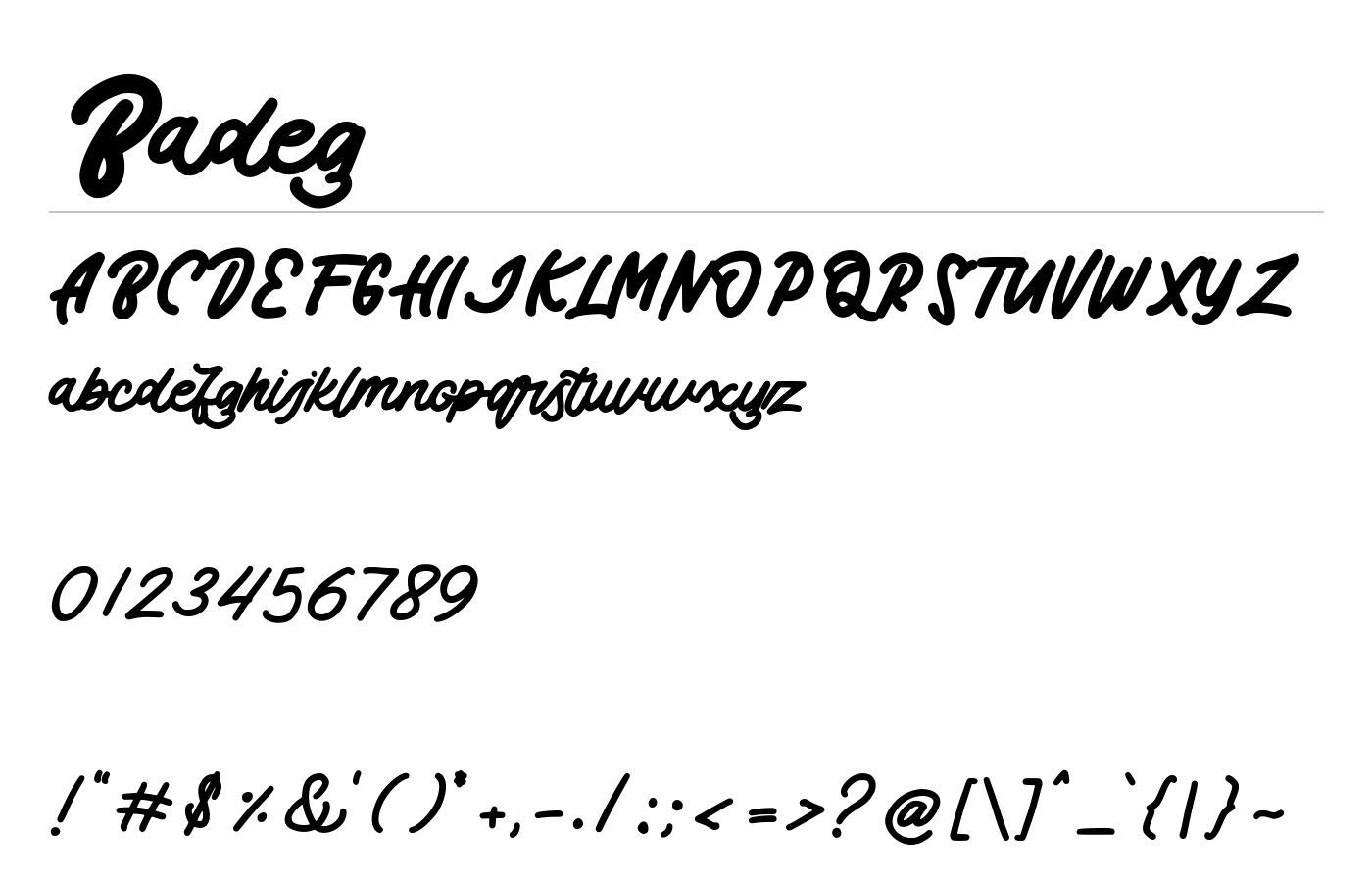
Badeg is a lively script font with a bold, brush-like appearance that combines smooth curves and organic strokes for a friendly yet confident feel. Its rounded letterforms and energetic style make it perfect for branding, informal headlines, and creative projects that want to convey approachability and charm. This font works well in designs needing a personal, handwritten touch without sacrificing readability.
Badeg Font